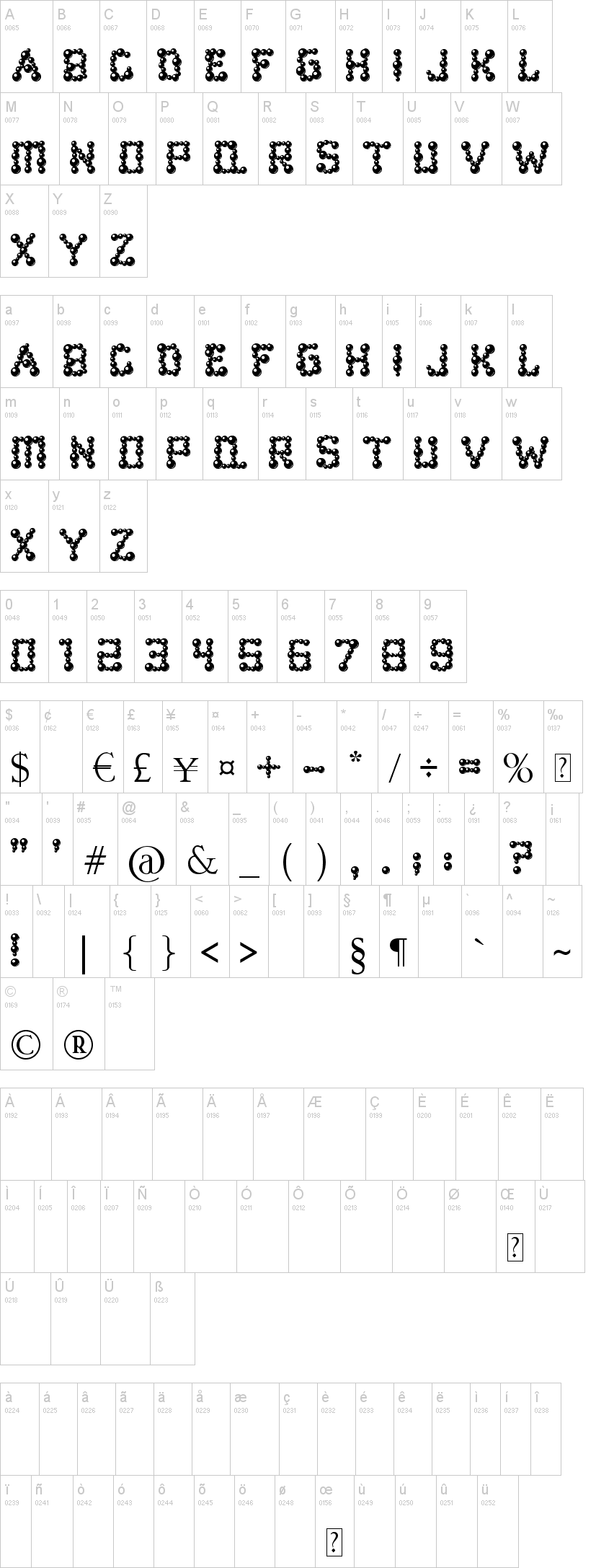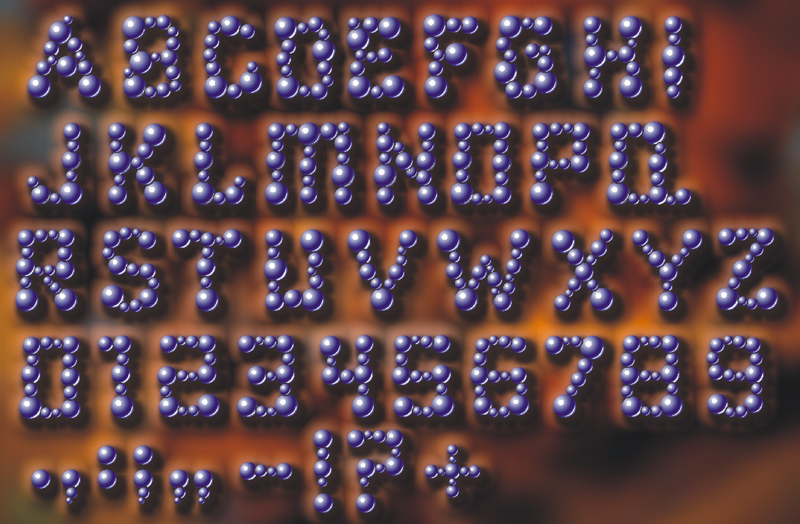
ballbearings.ttfNote of the authorBall Bearings is a variant of Bear Balling, with each ball a discrete form as opposed to all flowing together in an amalgamated shape.